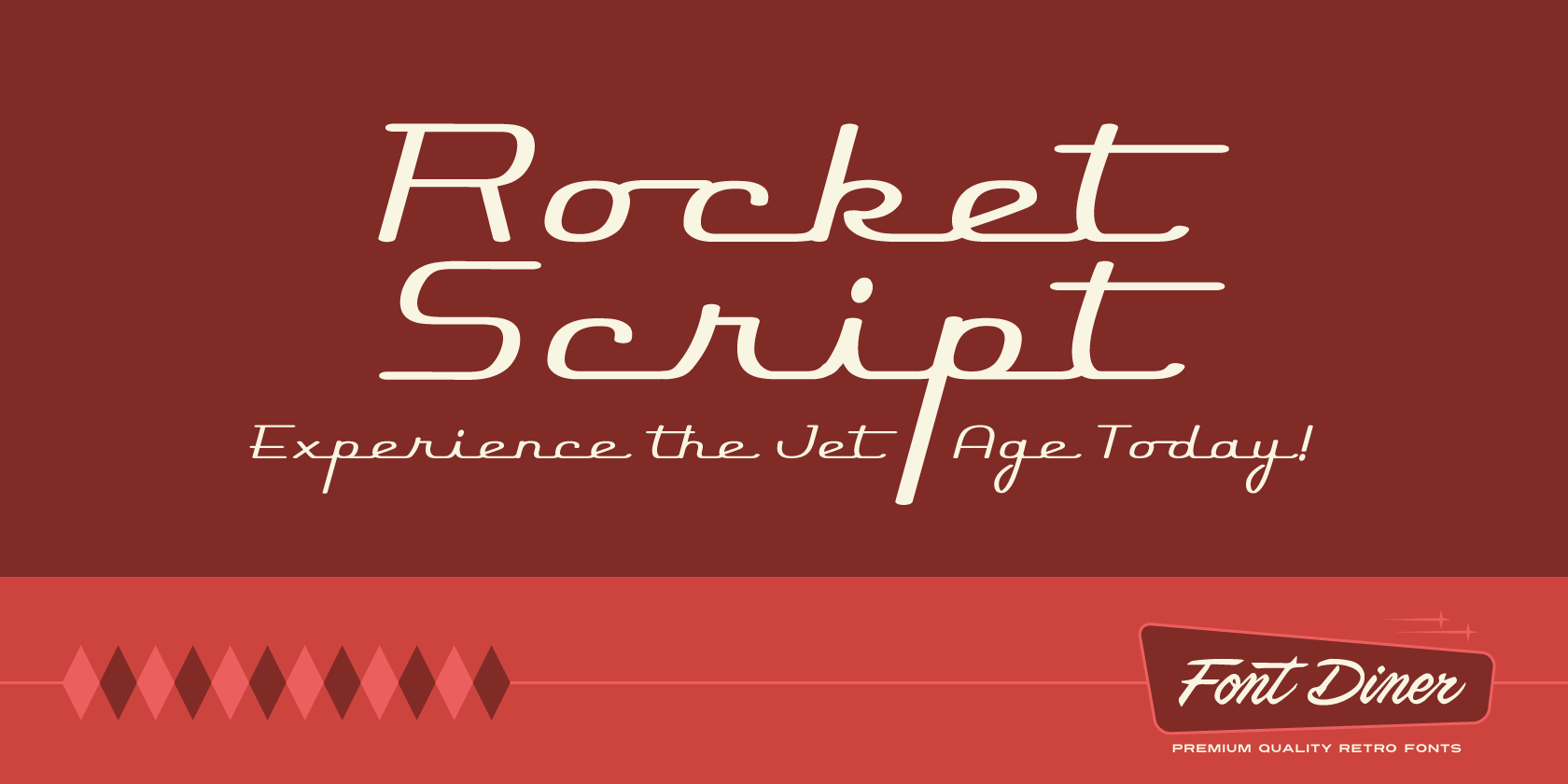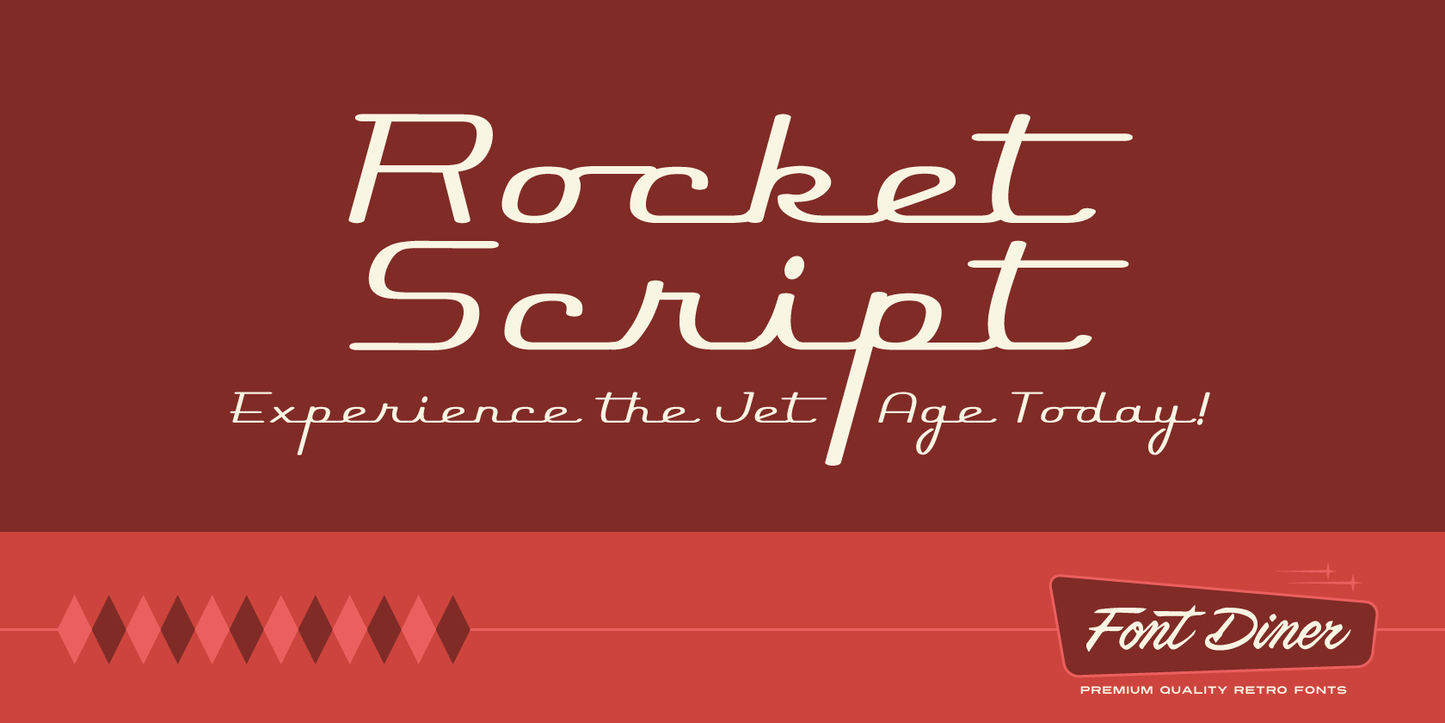
Houston, we have a font! I repeat, we have a font! Blasting at you from out of this world is our extra speedy retro script font Rocket Script!
Rocket Script Font
Rocket Script